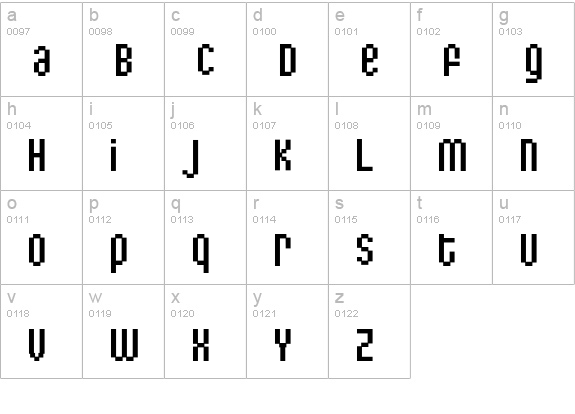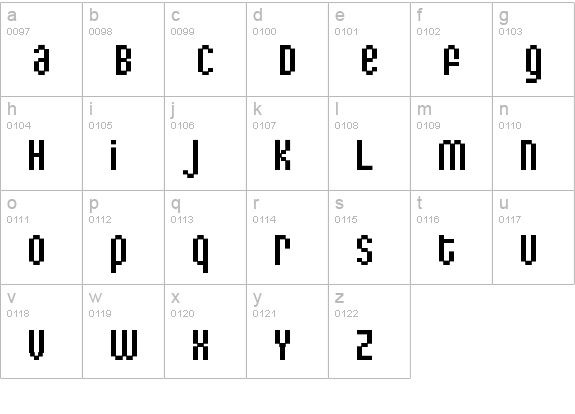
BiTthing Font Details
Introducing BiTthing font, a modern and stylish typeface that brings a unique touch to your design projects. This versatile font features sleek lines and a contemporary feel, making it perfect for a wide range of applications. Whether you're designing a logo, creating a poster, or crafting a website, BiTthing font will add a touch of sophistication to your work. Best of all, BiTthing font is completely free to download at FontsMarket.com. That's right – you can access this stunning font at no cost, making it easy to elevate your designs without breaking the bank. Don't miss out on this opportunity to enhance your creative projects with BiTthing font. Download it today and see the difference it can make!